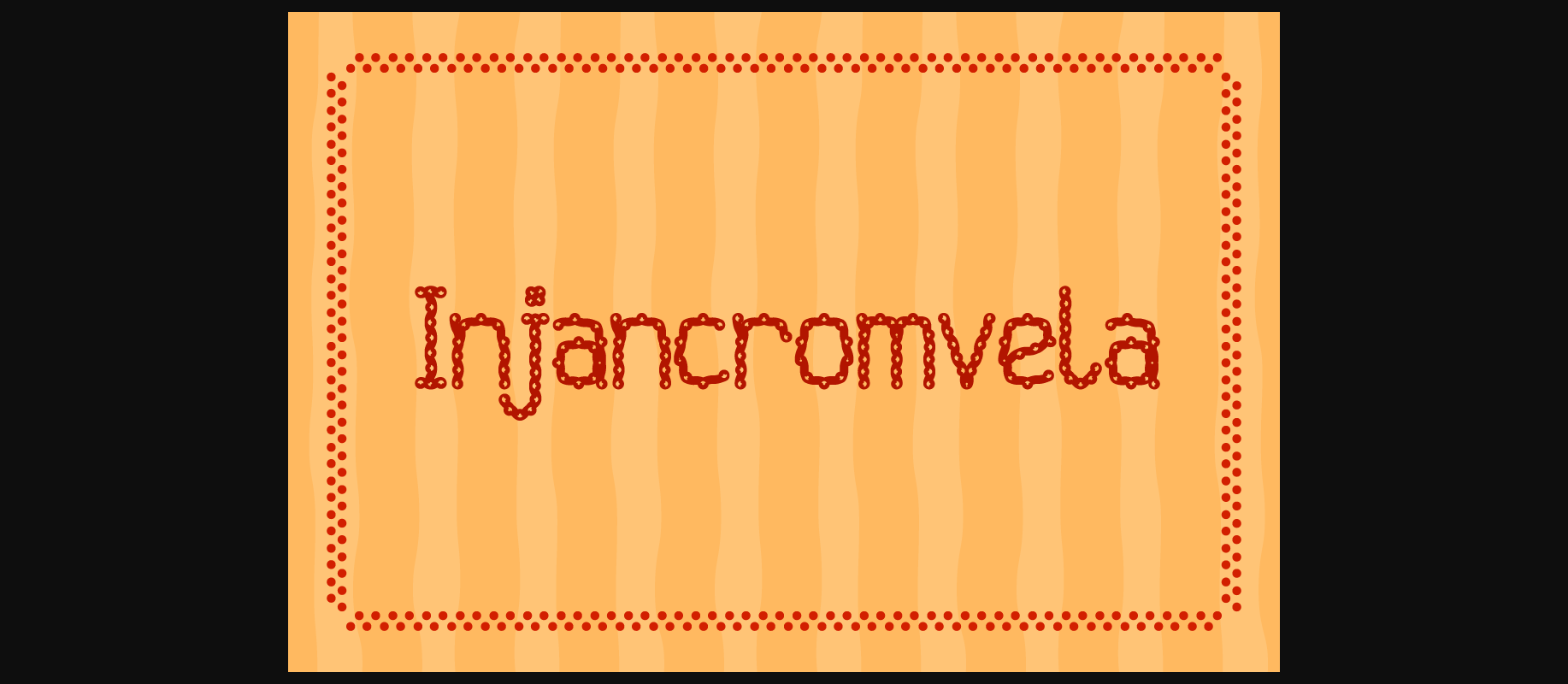
Injancromvela Font
About Injancromvela Font
Injancromvela is a fun decorative font, purposefully crafted to have a knitted, knotted feel. Use this font to give your designs a rustic, approachable charm.